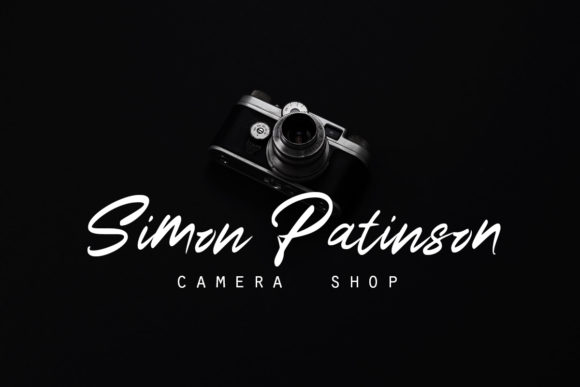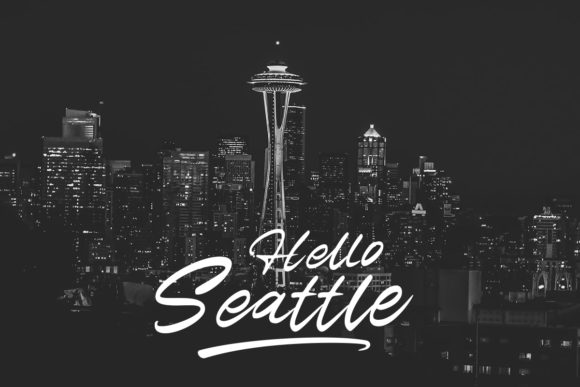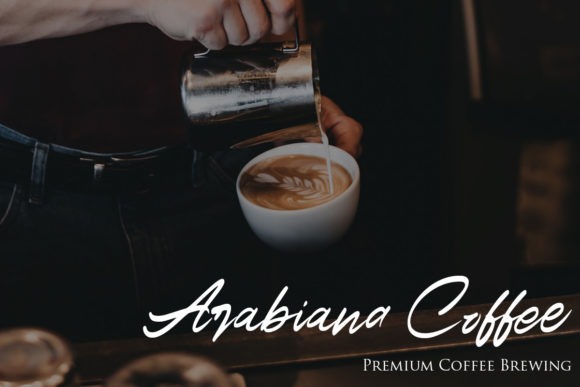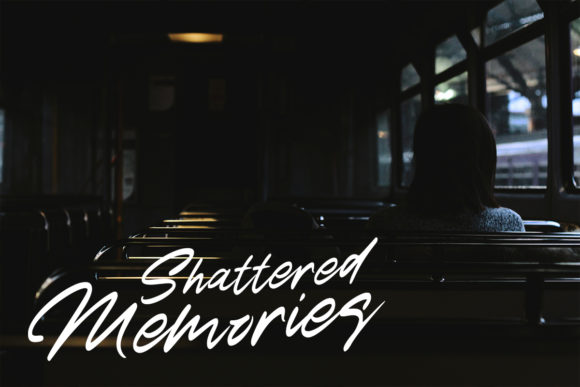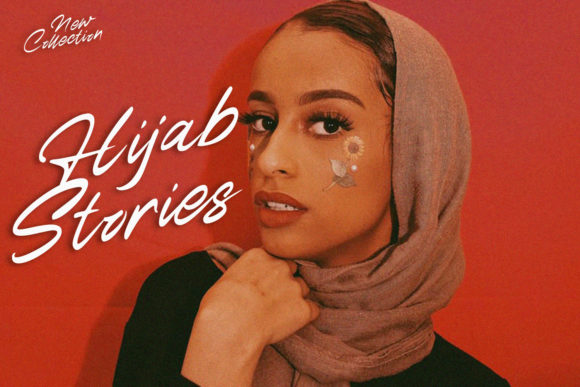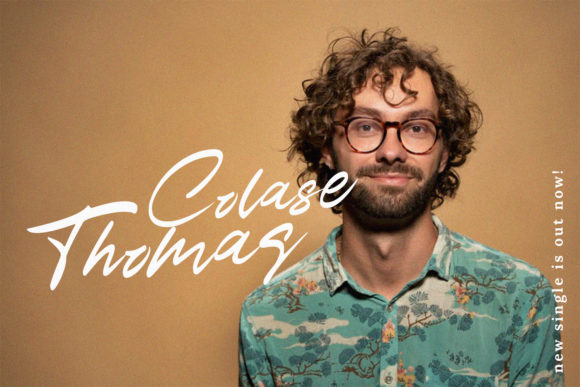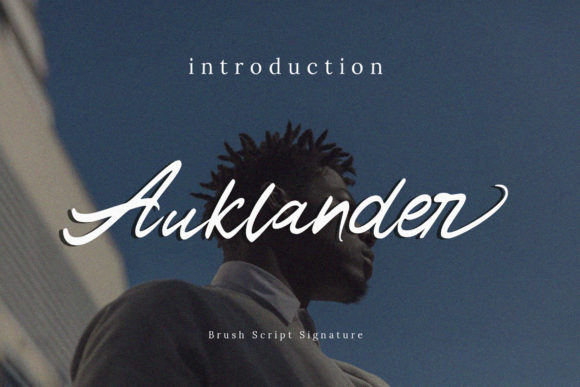
The Auklander Font: A Charming Standout for Your Creative Projects
I’ll never forget the time I was working on a branding project for a boutique coffee shop. I had nailed down the color palette, logo, and overall aesthetic, but something was missing – the perfect font. I scoured the internet, tried out dozens of options, but nothing seemed quite right. That was until I stumbled upon the Auklander font. Its unique flow and charming letters immediately caught my eye, and I knew I had found the one! ✨
An Honest Review of Auklander Font
• ✨ Unique and charming letterforms that add a touch of personality to any project
• ✅ Excellent readability, even at small font sizes
• 🎉 Support for multiple languages and OpenType features
• 👍 Highly versatile and works well for both digital and print projects
While Auklander is an amazing font, it’s not perfect. Here are a few things to keep in mind:
• ⚠️ Some letters may appear a bit narrow or tall, which can affect kerning
• 🤔 Limited availability of stylistic alternates, but still offers a range of OpenType features
The Designer Inspiration Behind Auklander
While the true story behind Auklander’s creation is unknown, it’s easy to imagine a designer inspired by the natural beauty of New Zealand’s Auckland region. Perhaps they wanted to create a font that captured the area’s unique blend of urban and natural landscapes. Whatever the inspiration, Auklander is a true standout in the world of typography. 🌳
Q: What type of projects is Auklander best suited for?
A: Auklander is highly versatile and works well for a wide range of projects, from branding and advertising to packaging and digital design.
Q: Does Auklander support OpenType features?
A: Yes, Auklander supports a range of OpenType features, including ligatures and stylistic alternates.
Q: Is Auklander easy to read?
A: Yes, Auklander is designed to be highly readable, even at small font sizes.